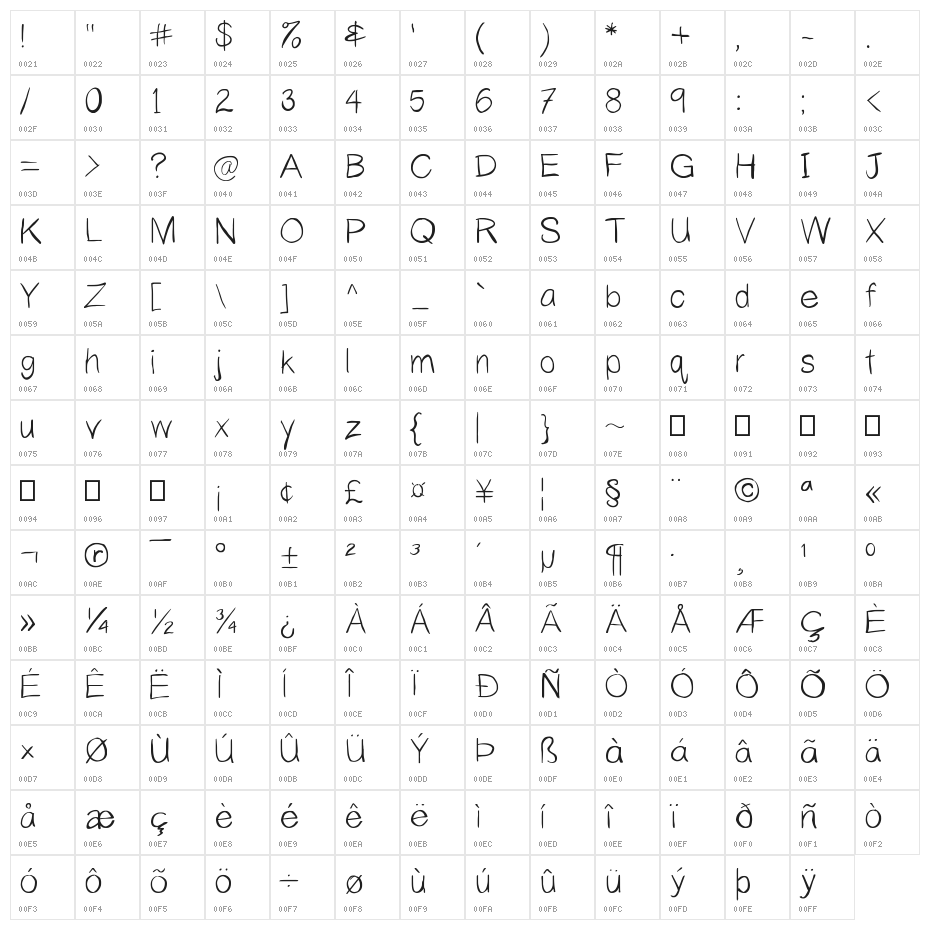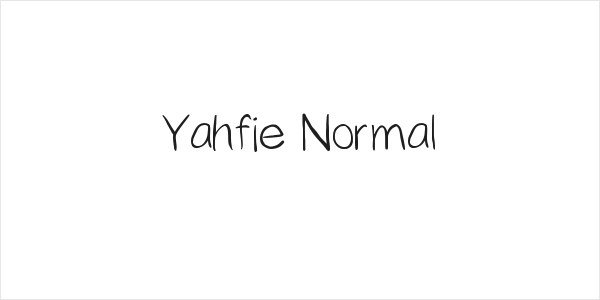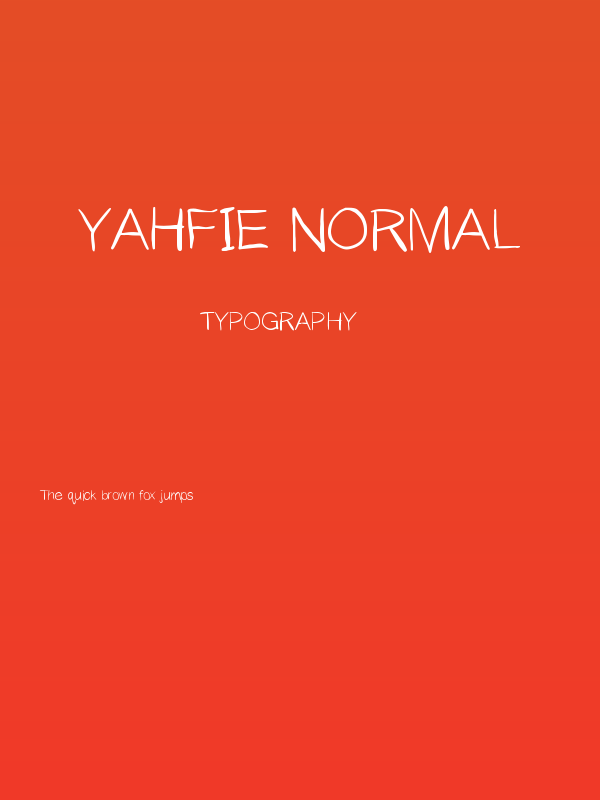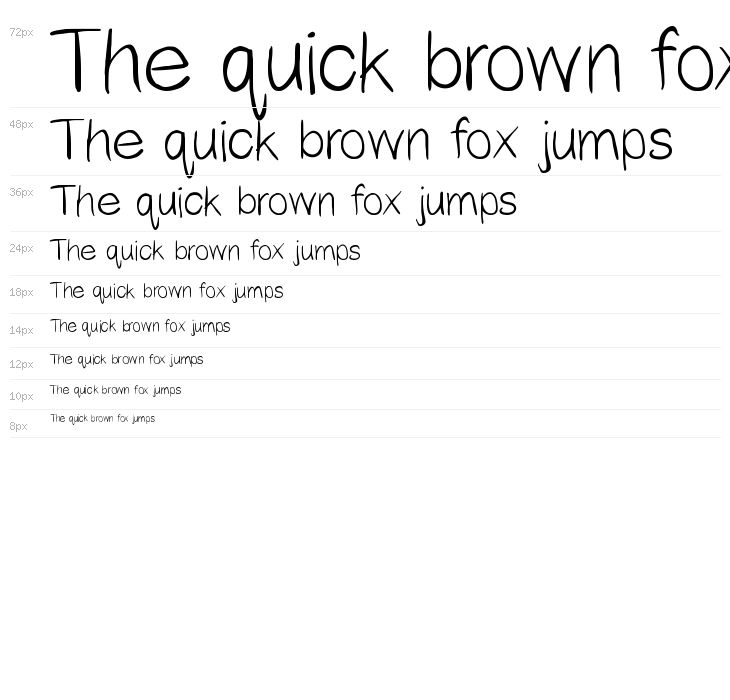
Yahfie Normal Font
Yahfie Normal Description
This font features a playful and casual handwritten style, characterized by its irregular strokes and slightly uneven baseline. The letters are crafted with a natural flow, giving a sense of spontaneity and informality. The uppercase letters are bold and prominent, while the lowercase letters maintain a consistent style with a slightly more relaxed appearance. The numerals are clear and legible, matching the overall aesthetic of the font. Special characters are included, maintaining the same whimsical style. This font is perfect for projects that require a personal touch or a friendly, approachable vibe.
| Use Case | Headlines, Informal text, Personal projects |
| Proposed Projects | Ideal for greeting cards, children's books, personal blogs, and informal branding. |